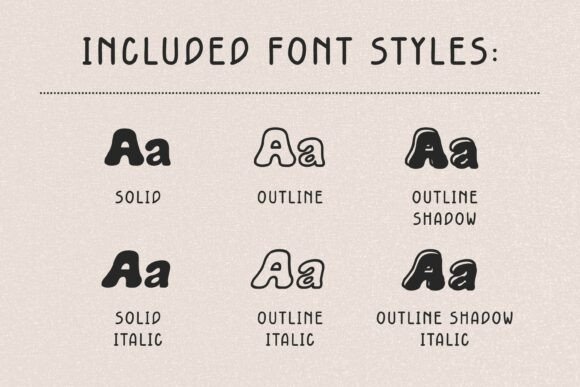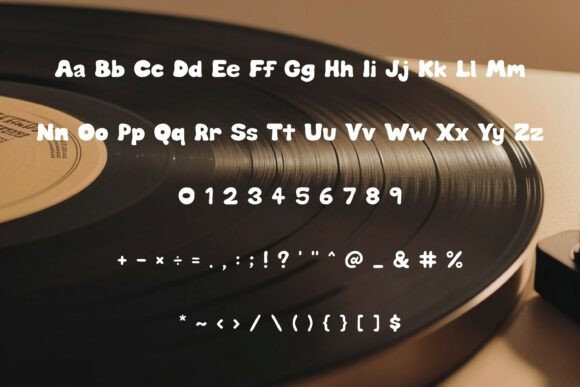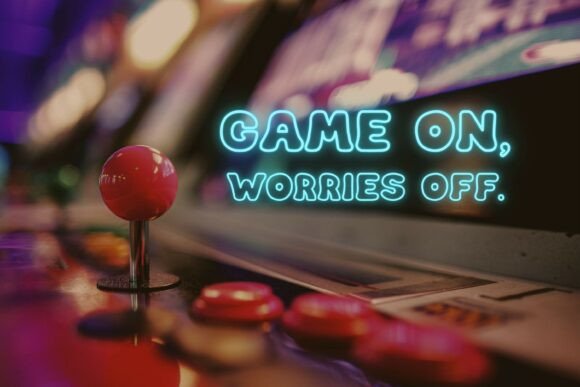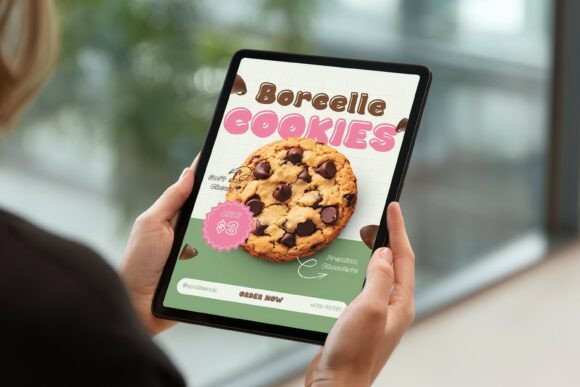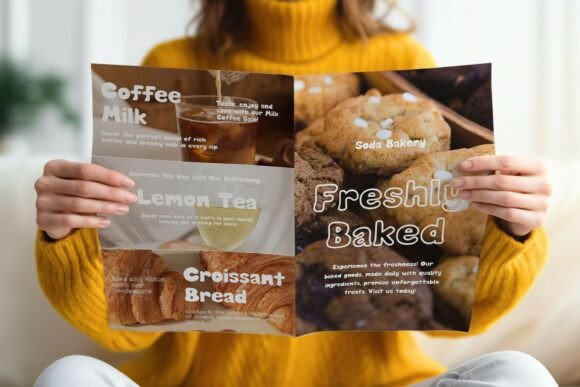
Introduction to Cookie Soda Font
✨ Sweeten your designs with Cookie Soda, a playful and chunky bubble font designed to bring a nostalgic, retro-pop vibe to any project.
Whether you’re aiming for a 70s vintage look or a modern Y2K aesthetic, this font is as versatile as it is fun .